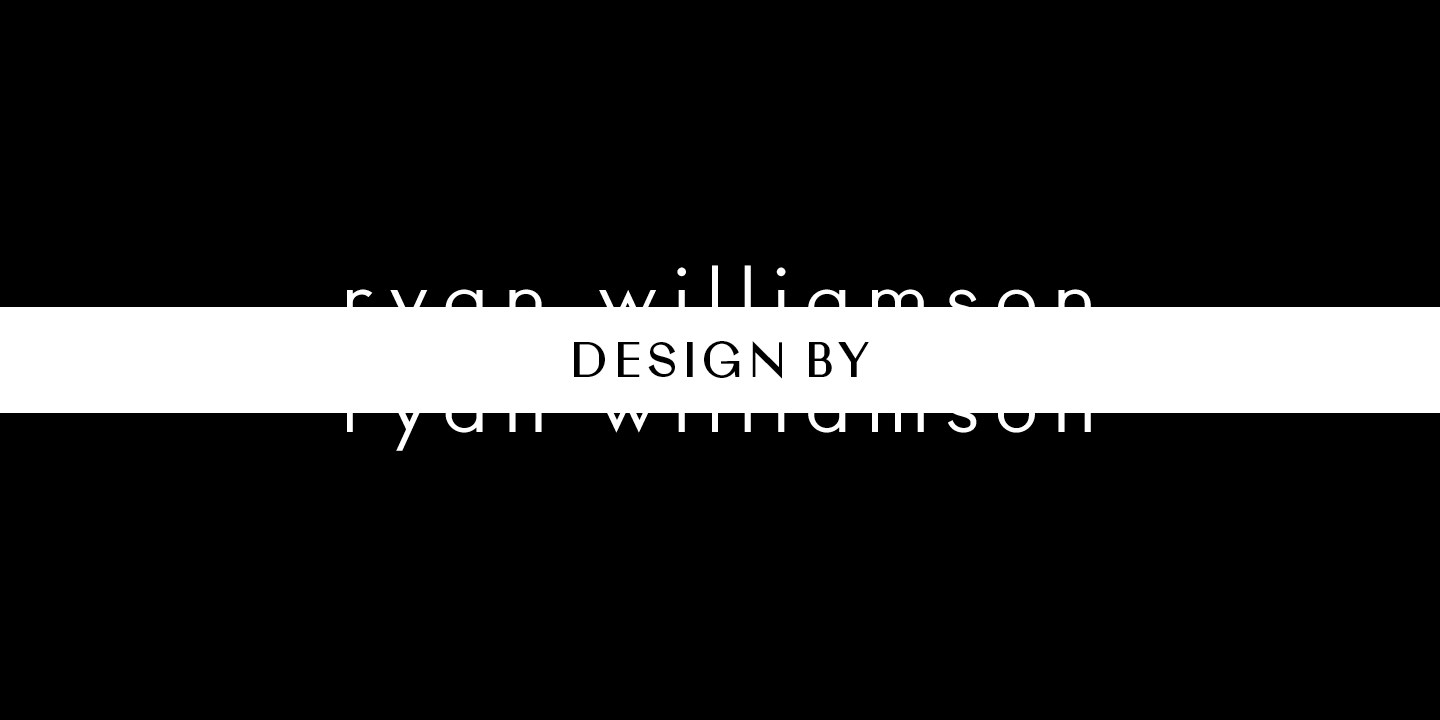
Rigidica Font is perfect for modern branding projects, logo design, poster creation, web headers, magazine layouts, book covers, business cards, packaging design, and digital marketing materials. Its versatile character makes it ideal for both print and digital applications.
What makes Rigidica Font exciting is its perfect balance between contemporary elegance and readability. The font features clean geometric lines with subtle personality touches that make any design stand out. Its professional appearance combined with creative flair makes it a designer's dream for projects that need to convey both reliability and innovation. The carefully crafted letterforms ensure excellent legibility across all sizes, from large display text to smaller body copy.
Rigidica Font comes in multiple weights and styles including Regular, Bold, Light, Medium, and Italic variations. Each family member maintains the distinctive character while offering flexibility for hierarchical typography. The complete font family provides designers with comprehensive tools for creating cohesive visual identities and sophisticated layouts.
Whether you're working on corporate branding, editorial design, or creative advertising campaigns, Rigidica Font Free Download offers the typographic excellence needed to elevate your projects. The font's modern aesthetic appeals to contemporary audiences while maintaining timeless qualities that ensure longevity in design applications. Its extensive character set supports multiple languages, making it suitable for international projects and global brand communications.